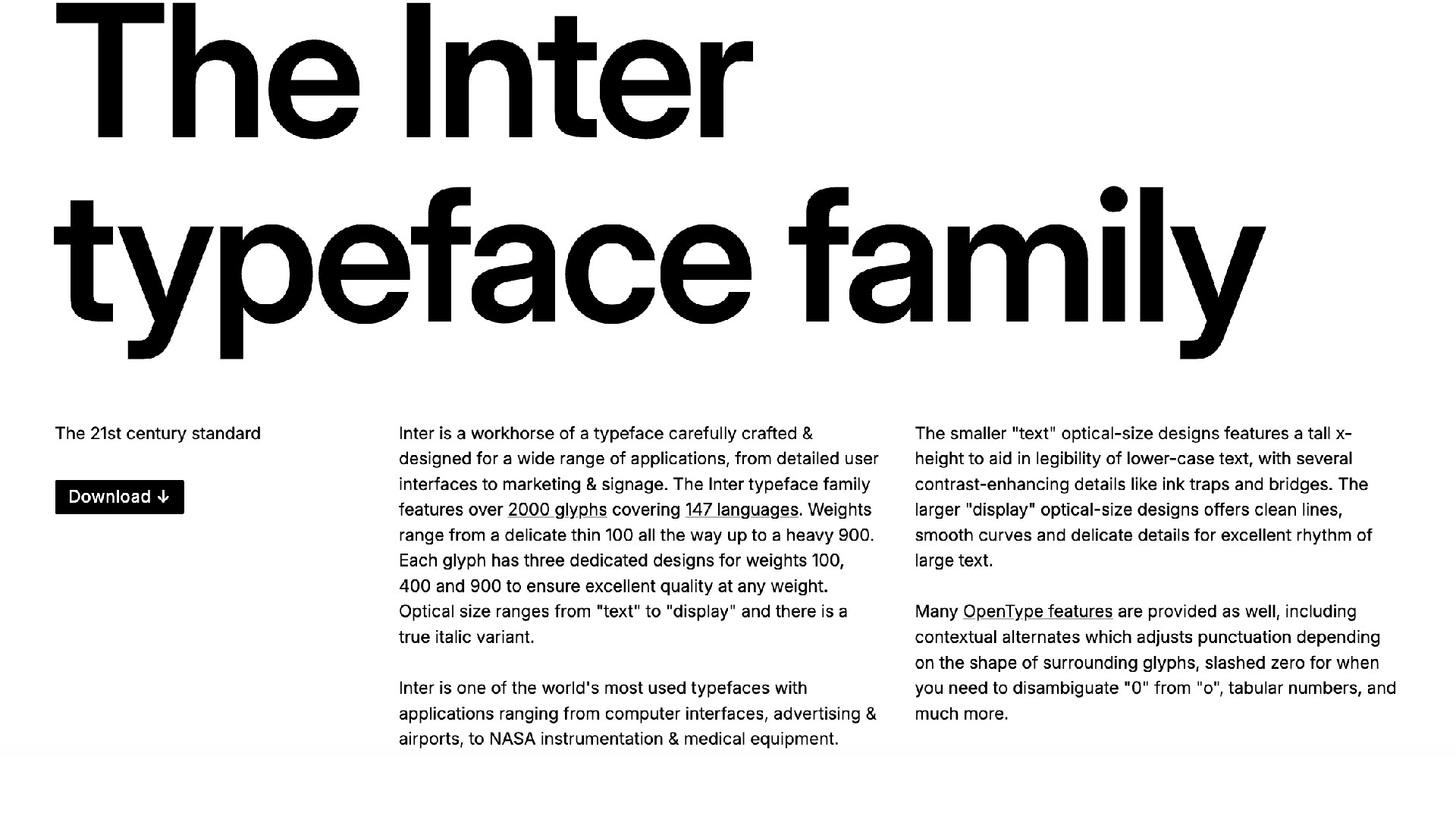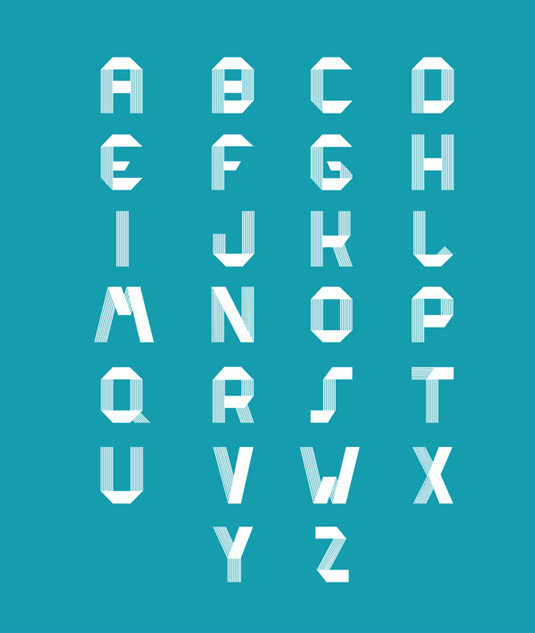
The best free fonts: 35 quality typefaces suitable for pro designers
Elevate your design projects with our collection of premium typefaces that won't cost you a penny.
In today's design landscape, typography has never been more crucial. The right font doesn't just convey information; it establishes mood, reinforces brand identity, and creates immediate visual impact.
While premium fonts can cost hundreds of dollars, the world of free typography has exploded with high-quality options that rival their commercial counterparts. From elegant serifs that exude sophistication to clean sans-serifs perfect for digital, today's free fonts offer pro-grade quality without the investment.
The best free serif fonts
01. Giveny
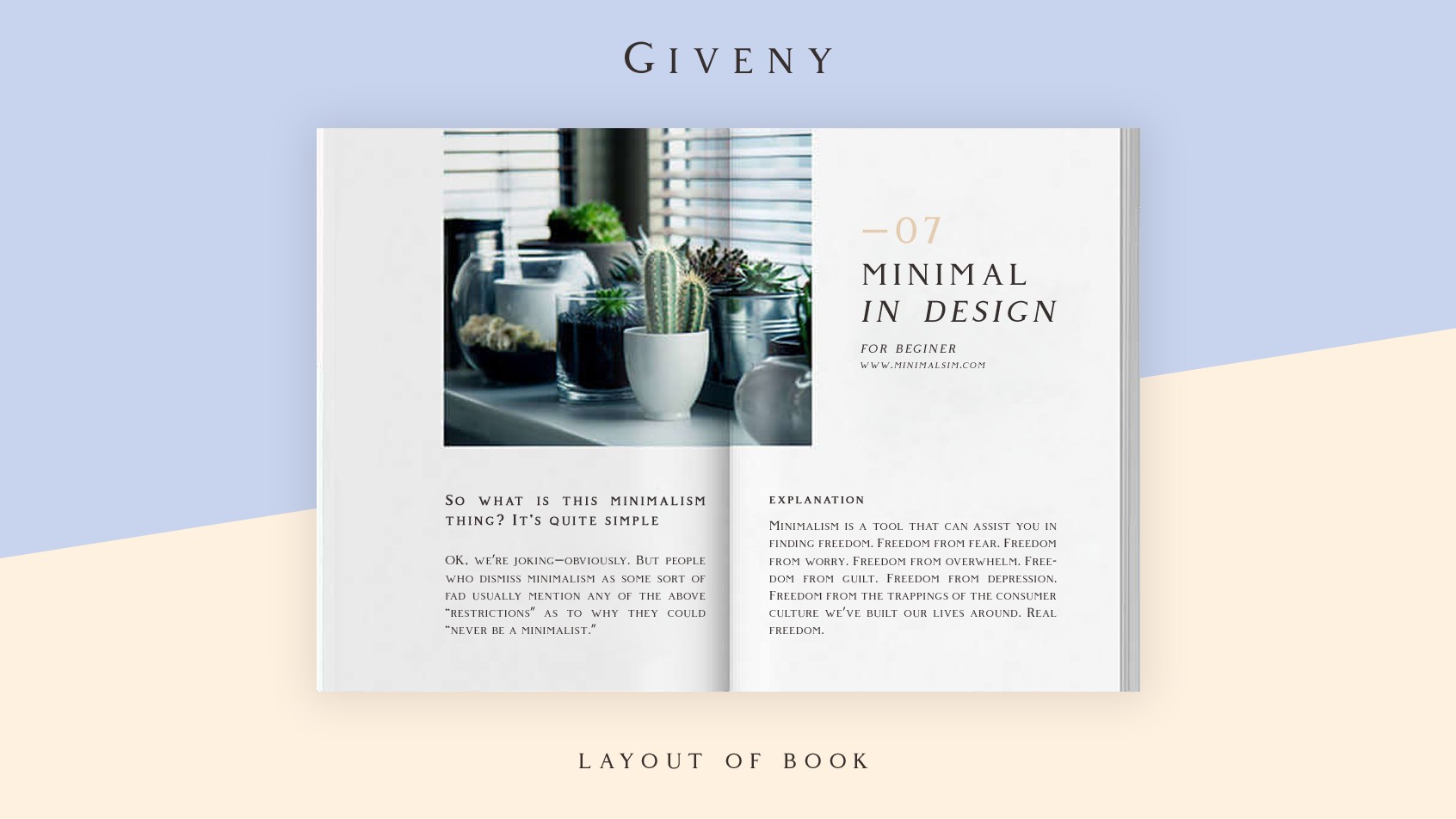
Described as a "fusion of pure geometry and optical balance", and taking inspiration from traditional serif styles, this stylish font nonetheless has a contemporary feel. It adds touch of everything from posters and invitations to logos and personal blogs.
02. Anonymous Pro
Designed by Mark Simonson, Anonymous Pro is a family of four fixed-width fonts created specifically with coding in mind. It draws inspiration from Anonymous 9, a freeware Macintosh bitmap font from the mid-'90s that aimed to provide a more legible alternative to Monaco. What makes it particularly useful for developers is its careful differentiation of characters that could be mistaken for one another (like O, 0, I, l, 1), making code easier to read and debug.
03. Halibut Serif
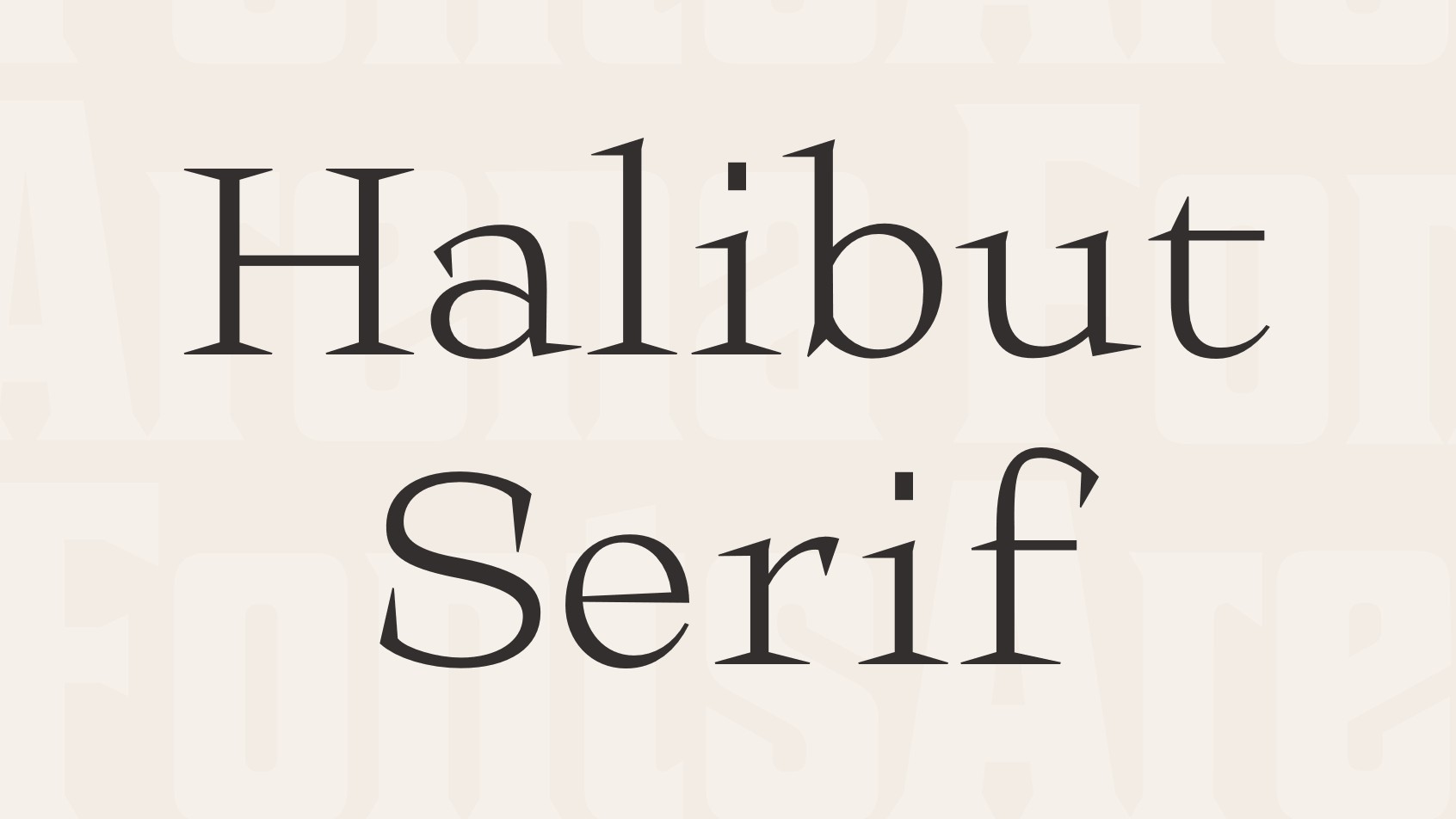
Created by the Collletttivo team, Halibut Serif is a striking font family with supersized serifs that make an immediate visual impact. It includes six styles (Regular, Condensed, Expanded plus Thin variants of each) with extensive language support. The font's nonconformist design makes it ideal for daring projects that need to stand out, from headlines and posters to brutalist designs. A variable font version is also available, giving designers precise control over the font's appearance.
04. Carena
This minimalistic, ligature style font is perfect for giving your designs that rustic yet elevated look. Beautifully detailed and ornate, Carena would be a good choice for projects that require a more delicate feel, such as for wedding invitations, editorials and personal projects.
05. Harmony
Harmony is available for download from Behance. This is a stylish modern font that features some gorgeous shapes that make it perfect for a more elegant touch. It is easy to read and professional looking, making it a great option for those looking for a bold statement.
06. Editorial New
Designed by Mathieu Desjardins, Editorial New is a precise narrow serif designed for long-form copy but with enough personality to be used for titles too. It exudes a 1990s editorial feel, but still comes across as rich and contemporary. It comes in seven weights, from ultralight to heavy.
07. Alegreya
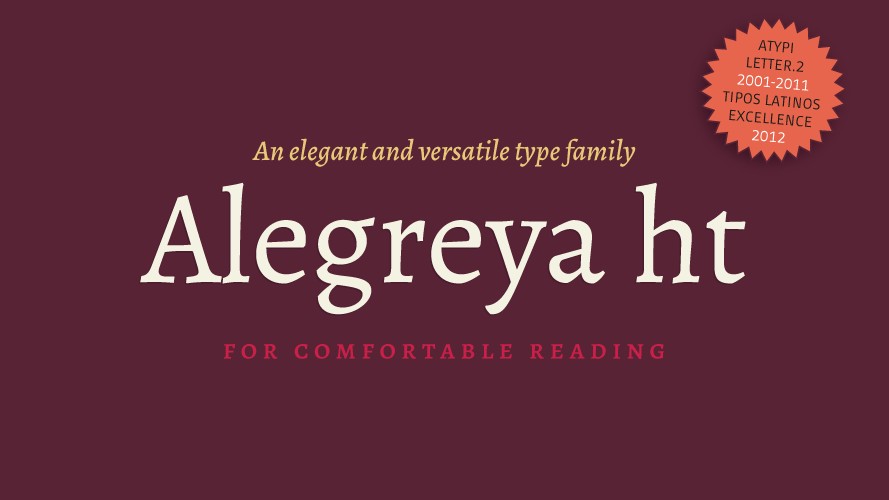
Crafted by Juan Pablo del Peral expressly for the purposes of book design, this award-winning serif font eminently readable, with a rhythm to it that facilitates the absorption of long texts, and we love it for its fresh, approachable take on a calligraphic style.
08. Restora
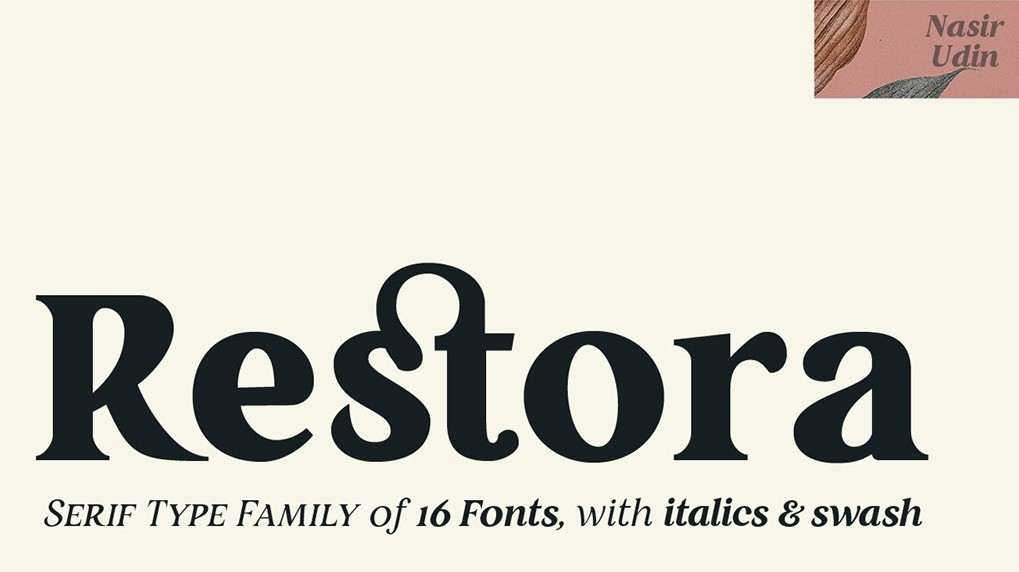
Designed by Nasir Udin, Restora is a combination of bright, friendly letterforms with an embellishment that feels classic. In its free version it also includes Restora Extra Light and Restora Thin Italic, giving you a good deal of versatility for general editorial text, a book cover or just a simple bit of branding.
09. Free Saint George Stencil Font
Fans of the classic font Georgia will appreciate this experimental tribute by Vedran Vaskovic. It's made up of a collection of cheeky, playful stencil shapes that are perfect for adding a little flair to your designs. Apparently, it's inspired by the Christian legend of Saint George the dragon-slayer.